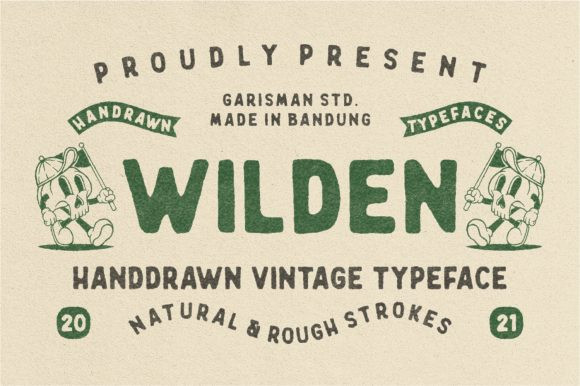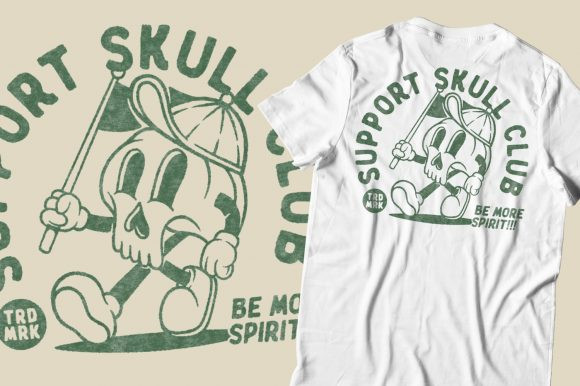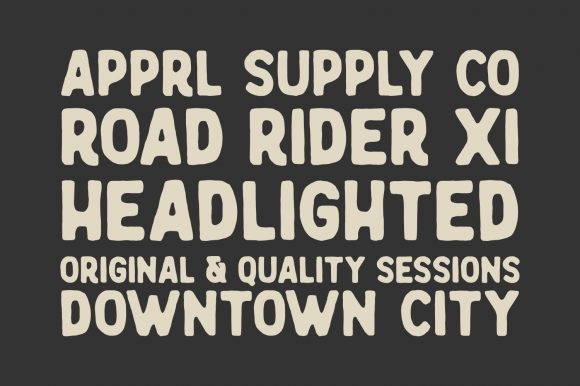
Wilden Font
Wilden is an organic, vintage styled display font. Masterfully designed to become a true favorite, this font has the potential to bring each of your creative ideas to the highest level!